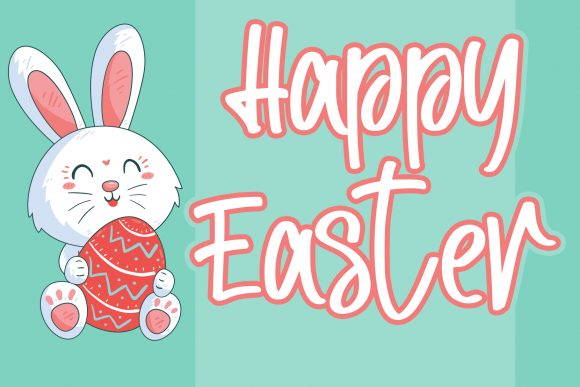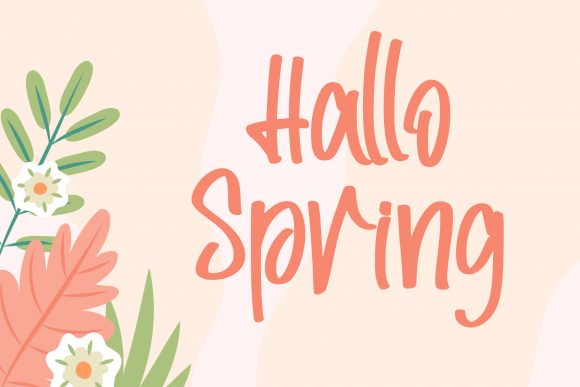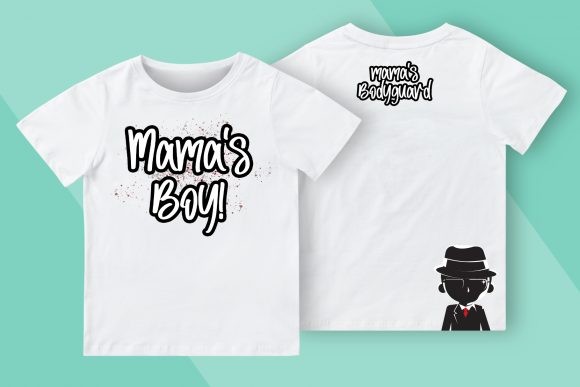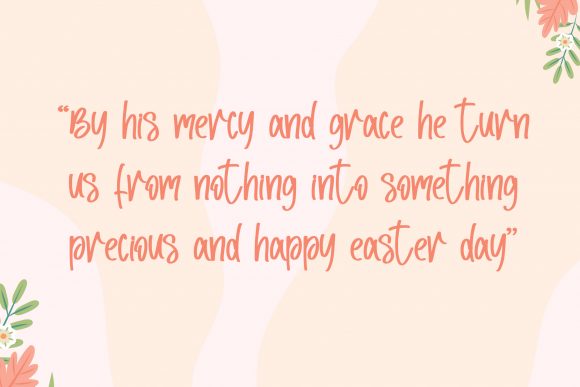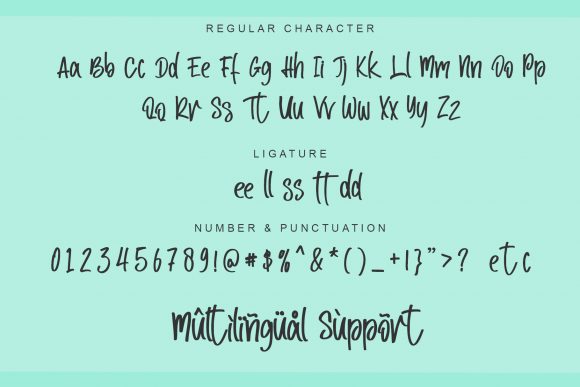
Captain Kangaroo Font
About Captain Kangaroo Font
Captain Kangaroo is a cute and sweet handwritten font with an incredibly friendly feel. Whether you are using it for cartoon-related designs, children’s games, quotes, titles, brand names, book covers, posters, or just any creation that requires a touch of beauty, this font is a great choice.